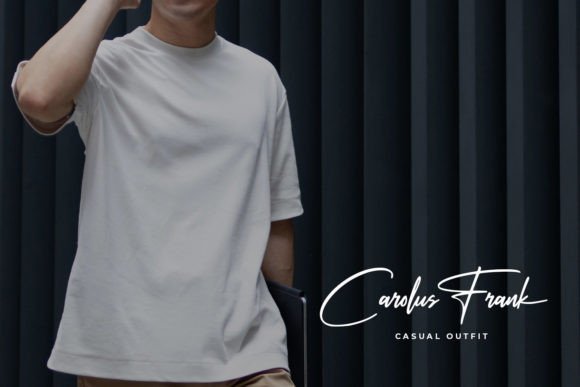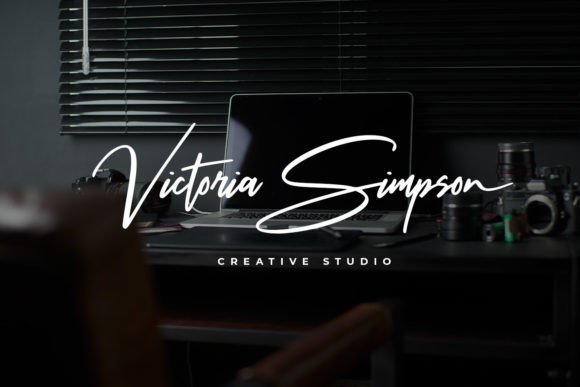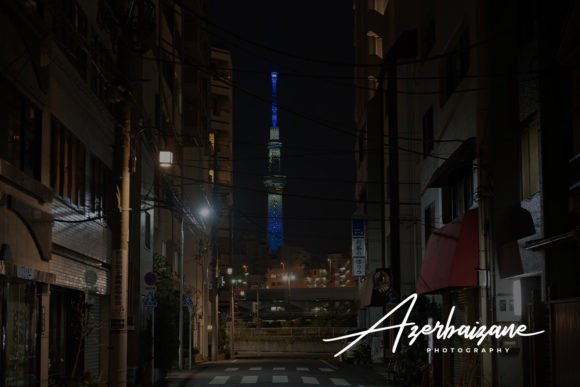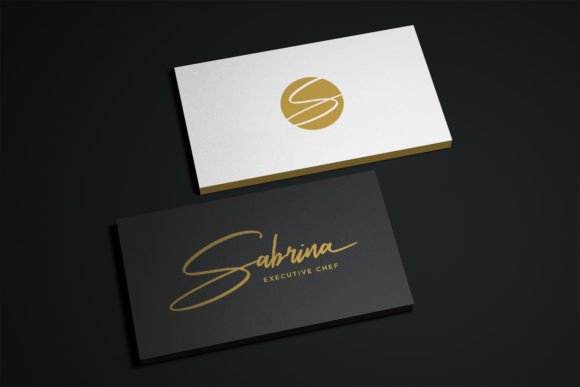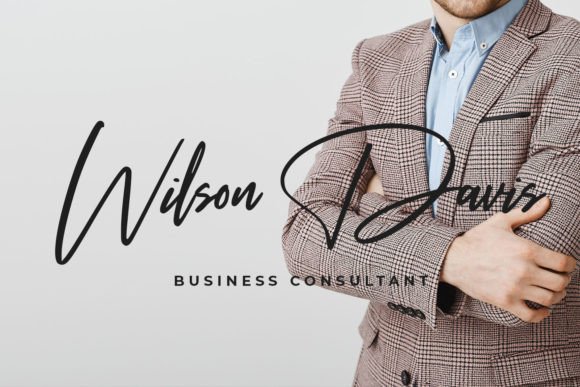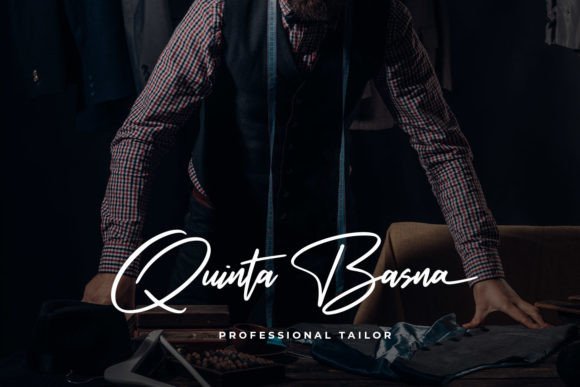
Introduction to Julia Signature Font
JULIA SIGNATURE – aesthetic signature font- JULIA SIGNATURE is natural handwritten font.
It is great for branding, quotes, logos, t-shirt designs, tote bag designs, cards, banners, social media, and more It is completed with an ending swash.